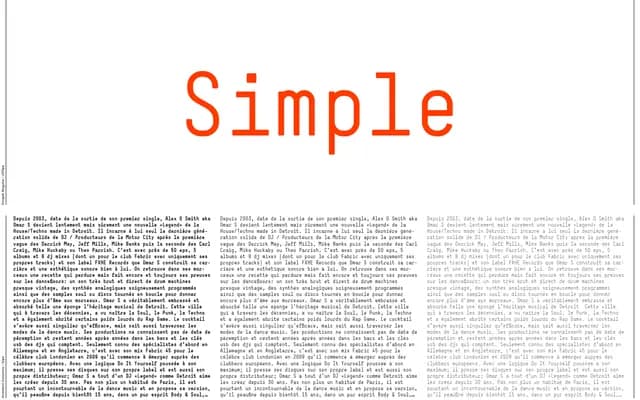
LL Simple
Lineto · NORM (Dimitri Bruni, Manuel Krebs) · 2000
A monospace text typeface by Zurich studio NORM, originally drawn for their densely typeset 2002 publication and released publicly in 2000.
Designed by Dimitri Bruni and Manuel Krebs of NORM, LL Simple offers three weights — Light, Regular and Bold — each with a matching oblique, plus four titling versions. It was built for reading at small point sizes and proved its utility as the exclusive corporate typeface for Köln/Bonn Airport after being expanded into a proportional variant. A proportional redraw as a fully functional text font is currently underway with the assistance of Giliane Cachin.
LL Simple is explicitly described as a monospace typeface family, designed for text use at small sizes, with a later proportional expansion for corporate use.